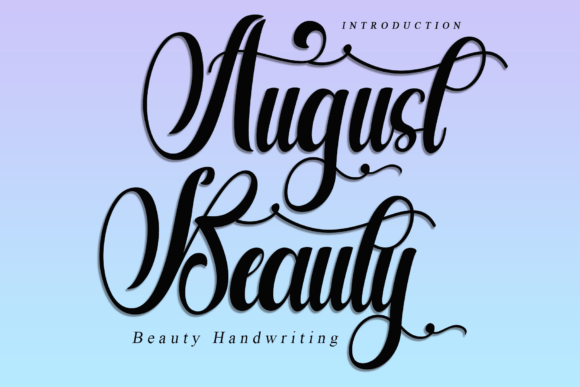
Introduction to August Beauty Font
August Beauty is a luxurious script font with dramatic swashes and elegant curves.
Inspired by classic calligraphy, this typeface is ideal for upscale branding, food packaging, wedding invitations, or any project that needs a touch of refined charm Its graceful flow and high contrast strokes give it a timeless, sophisticated feel.
Key Features of August Beauty Font
Why Choose August Beauty Font?
August Beauty Font offers exceptional quality and versatility, making it a valuable addition to your design toolkit. Whether you’re creating for personal projects or commercial use, August Beauty Font delivers professional results.